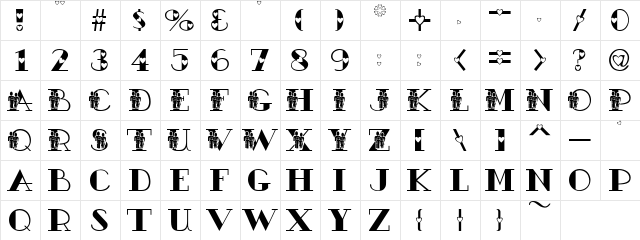
AC3-Family Regular
Design Context for AC3-Family Typeface
AC3-Family is a composed and adaptable typeface that performs quietly and consistently across a wide range of design contexts.